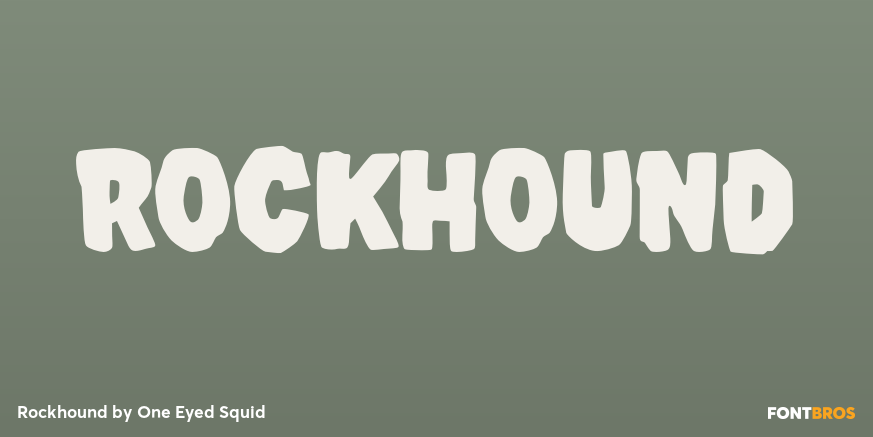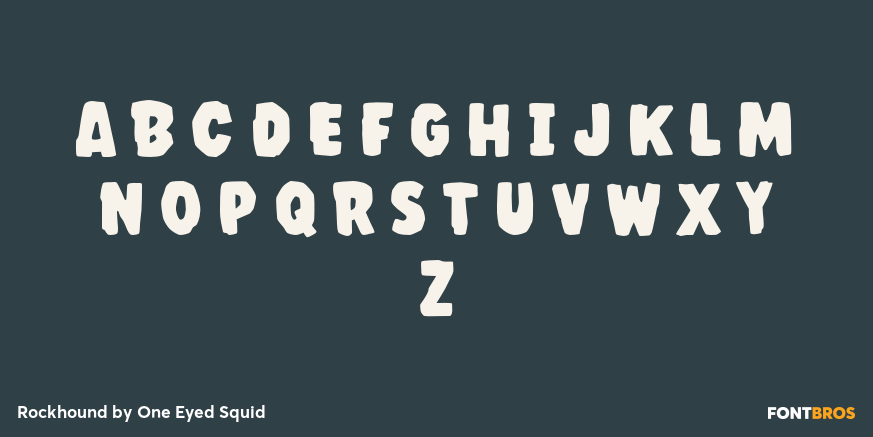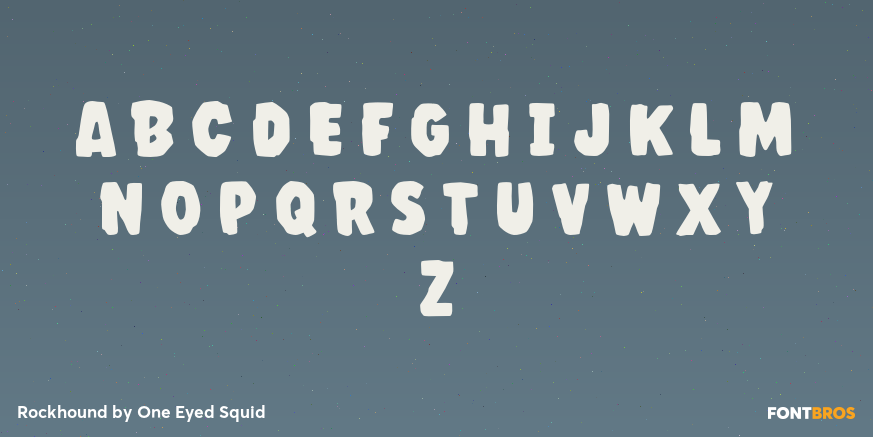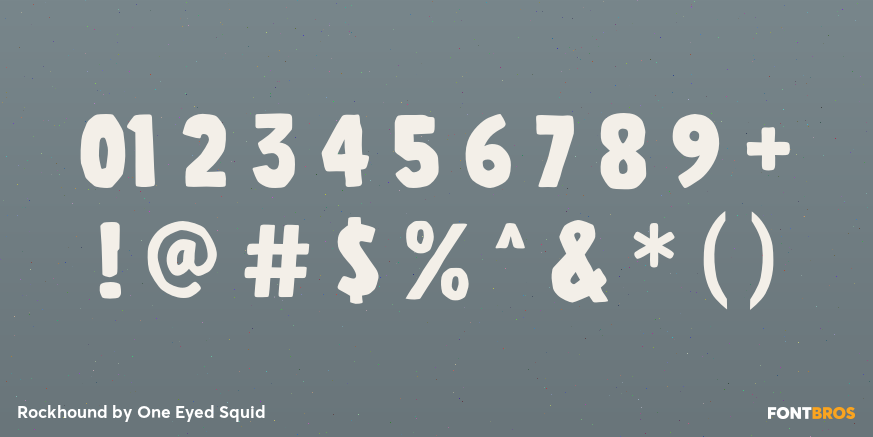
Rockhound
Font Family by One Eyed Squid
Rockhound is a heavyweight rugged display font with a primitive, caveman-inspired look and an unexpectedly friendly personality. Its chunky, rough-hewn letterforms give it a bold, powerful presence while still feeling approachable and full of character. Ideal for headlines, posters, branding, packaging, logos, social media graphics, and other creative projects that call for a strong, earthy, and playful typographic voice, Rockhound delivers big visual impact with a warm offbeat charm. Includes extended Latin language support, including Vietnamese.